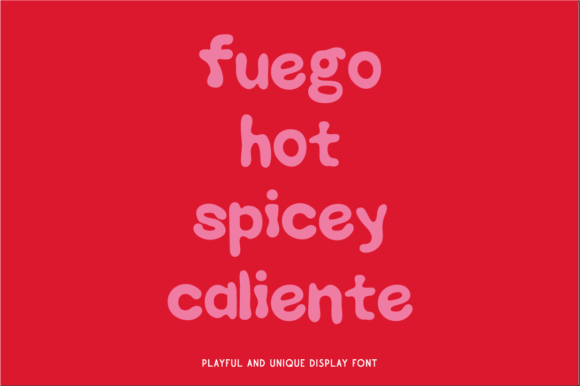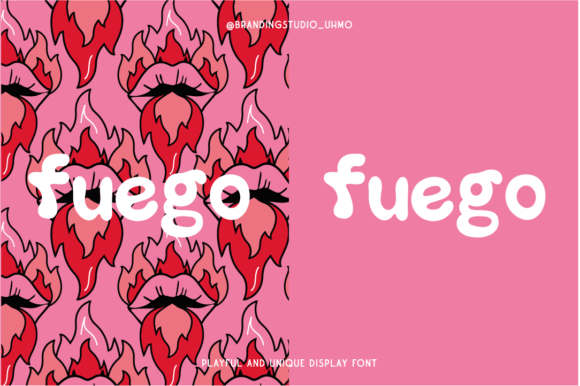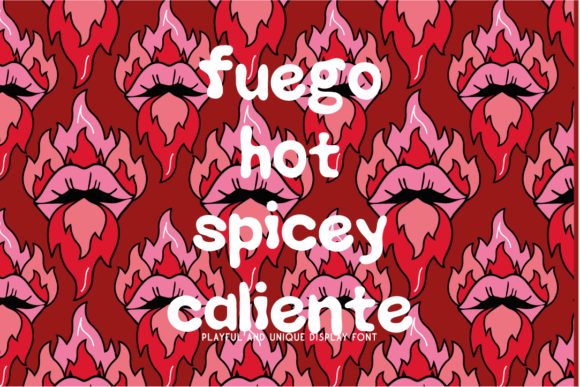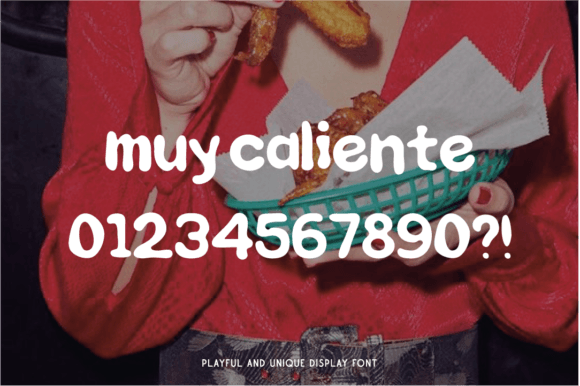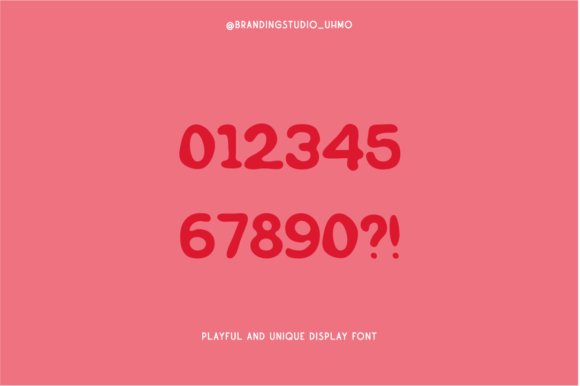
Fuego Font: The Sizzling Hot Display Font for Creative Designs
Are you looking for a font that can add a dash of heat to your design projects? Look no further than Fuego Font! This hot and groovy display font is perfect for creative designers and crafters who want to add a funky touch to their work. In this article, we’ll dive into the features and benefits of Fuego Font, and explore how it can elevate your branding, social media posts, packaging, stickers, and more.
What is Fuego Font?
Fuego Font is a stylish and modern display font that’s designed to make a statement. Its unique and quirky design makes it perfect for creative projects that require a bold and eye-catching look. The font is carefully crafted to convey a sense of fun, energy, and playfulness, making it ideal for designs that need to stand out from the crowd.
Key Features of Fuego Font
- Hot and Groovy Design: Fuego Font boasts a sizzling hot and groovy design that’s sure to grab attention. Its bold and curvy lines make it perfect for creating funky and eye-catching designs.
- Suitable for Creative Projects: Fuego Font is designed specifically for creative projects that require a bold and statement-making look. It’s perfect for designers and crafters who want to add a touch of personality to their work.
- Branding and Social Media Friendly: Fuego Font is versatile and can be used for a variety of design projects, including branding, social media posts, packaging, stickers, and more.
- Easy to Read and Customize: Despite its bold design, Fuego Font is easy to read and customize. You can adjust the font size, color, and style to fit your design needs.
Use Cases for Fuego Font
Fuego Font is a versatile font that can be used for a wide range of design projects. Here are some use cases where Fuego Font can shine:
- Branding: Use Fuego Font to create bold and eye-catching logos, business cards, and letterheads that reflect your brand’s personality.
- Social Media Posts: Add a touch of fun and personality to your social media posts with Fuego Font. It’s perfect for creating engaging and shareable content.
- Packaging: Use Fuego Font to create eye-catching packaging designs that stand out on store shelves.
- Stickers: Fuego Font is perfect for creating fun and quirky stickers that can be used for promotional purposes or as a decorative element.
Benefits of Using Fuego Font
So, why should you use Fuego Font for your design projects? Here are some benefits of using this hot and groovy display font:
- Adds Personality to Your Designs: Fuego Font can add a touch of personality and whimsy to your designs, making them more engaging and shareable.
- Stand Out from the Crowd: Fuego Font’s unique design makes it perfect for designs that need to stand out from the crowd.
- Versatile and Customizable: Fuego Font is versatile and can be customized to fit your design needs, making it perfect for a wide range of design projects.
In conclusion, Fuego Font is a hot and groovy display font that’s perfect for creative designers and crafters who want to add a funky touch to their work. Its unique design, versatility, and customizability make it an excellent choice for a wide range of design projects, from branding and social media posts to packaging and stickers. So, why settle for boring and bland fonts when you can add some heat to your designs with Fuego Font?